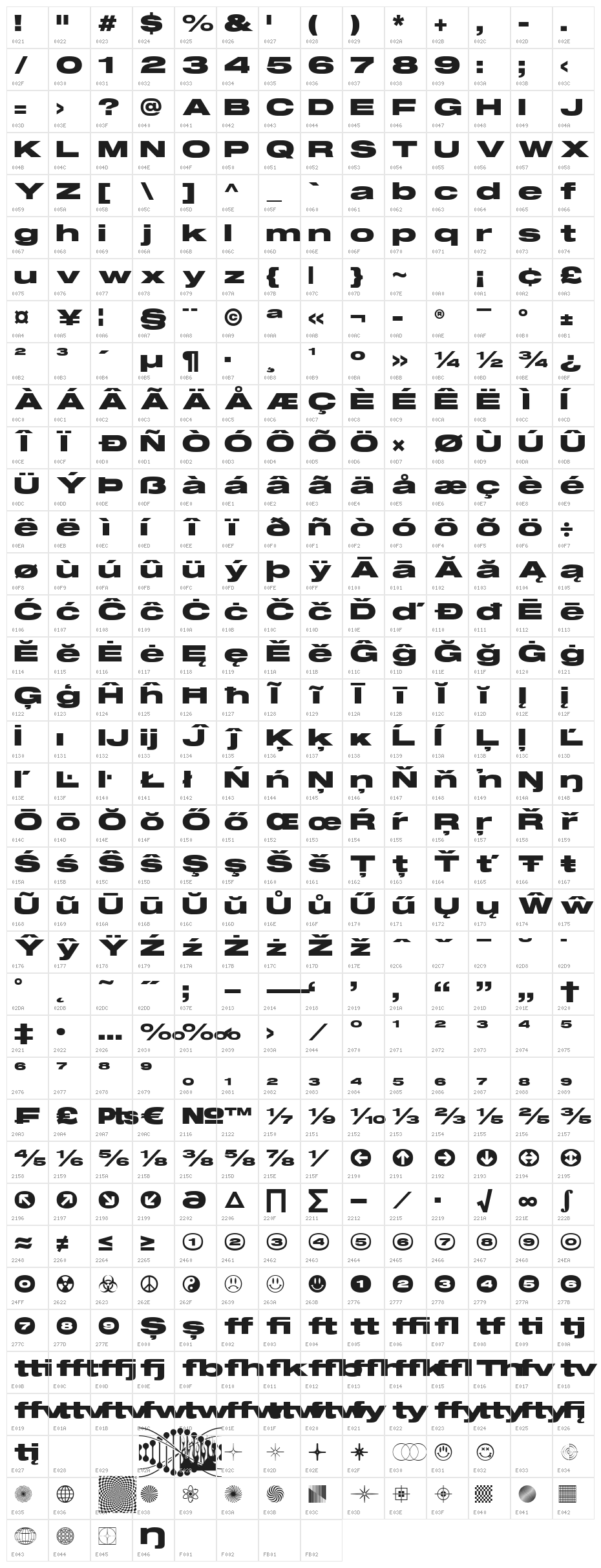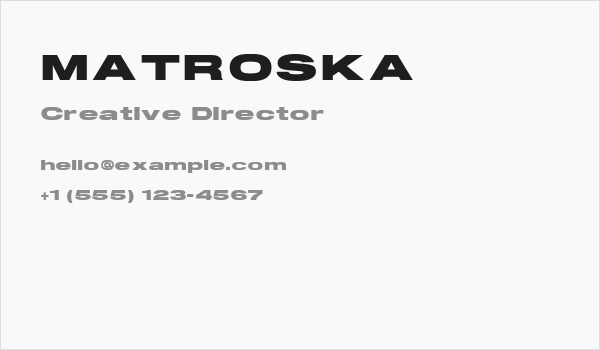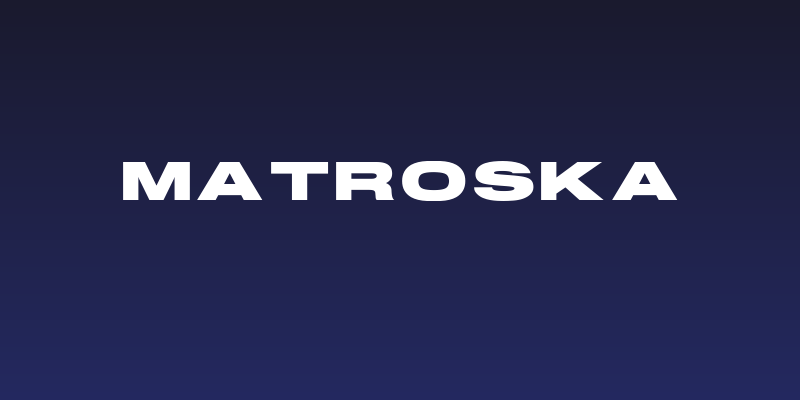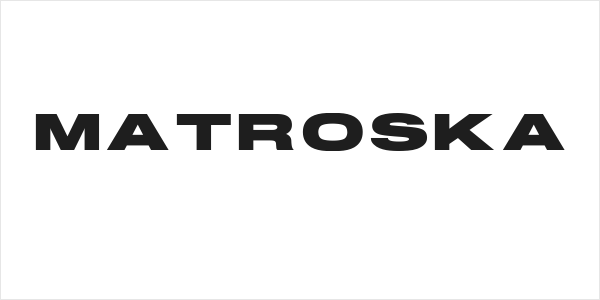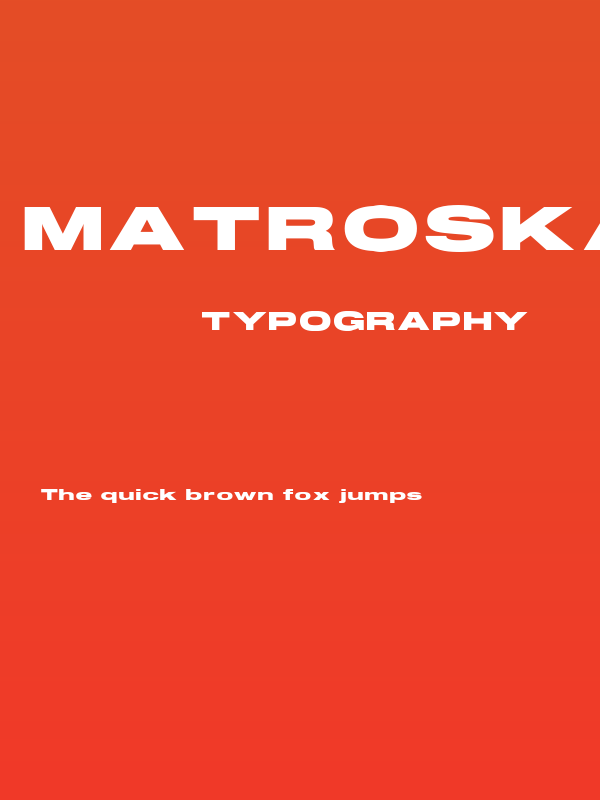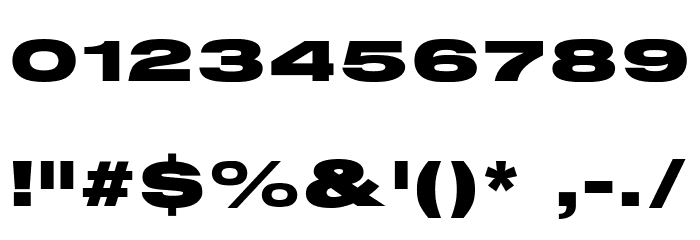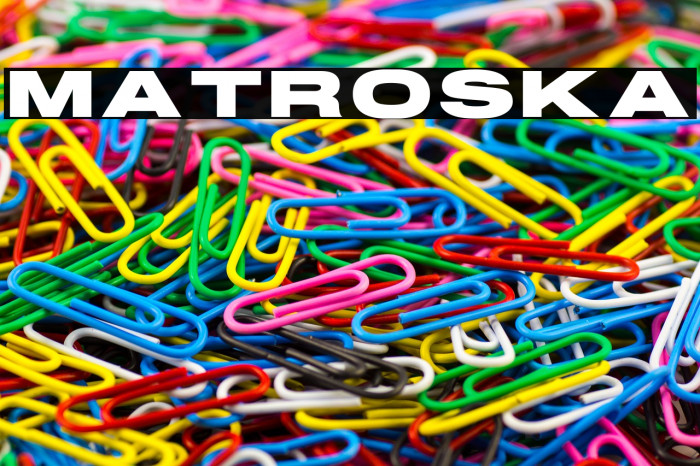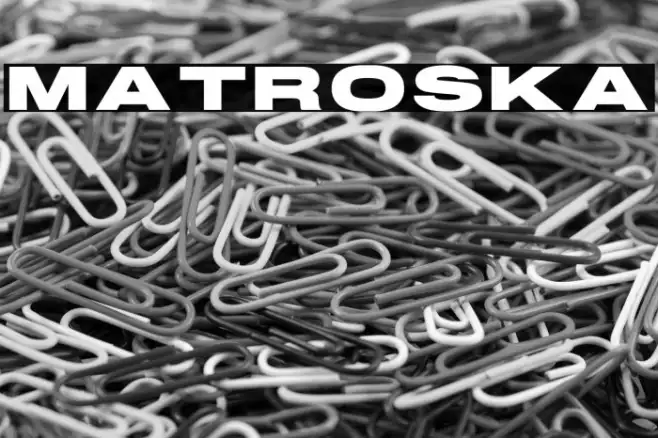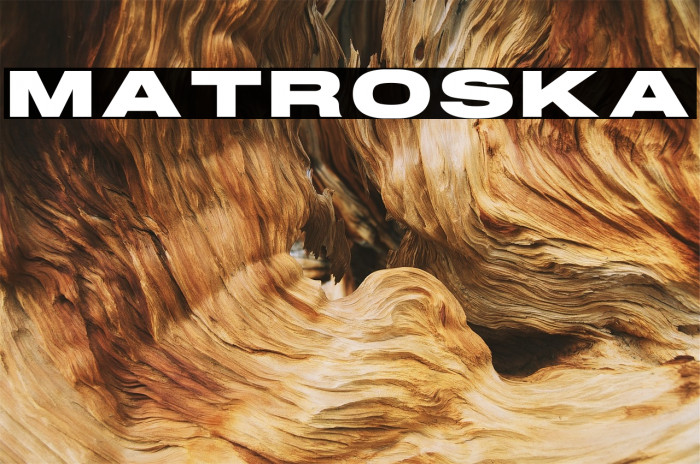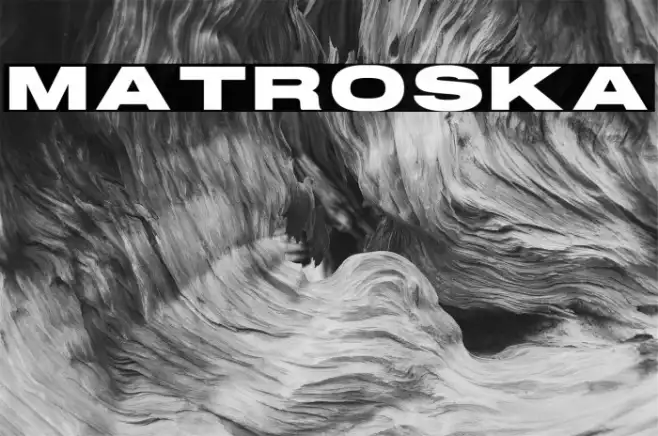
MATROSKA Font
MATROSKA Description
This font exhibits a bold and modern aesthetic with a strong presence. The characters are uniformly thick, providing a consistent and powerful look. The uppercase and lowercase letters maintain a geometric structure, with rounded edges that soften the overall appearance. The numerals are equally bold, ensuring readability and impact. Special characters are designed to match the weight and style of the alphabetic characters, ensuring a cohesive look across all text elements. This font is ideal for making statements, with its high visibility and striking design.
| Proposed Projects | Ideal for branding, headlines, posters, and any project requiring a strong visual impact. |